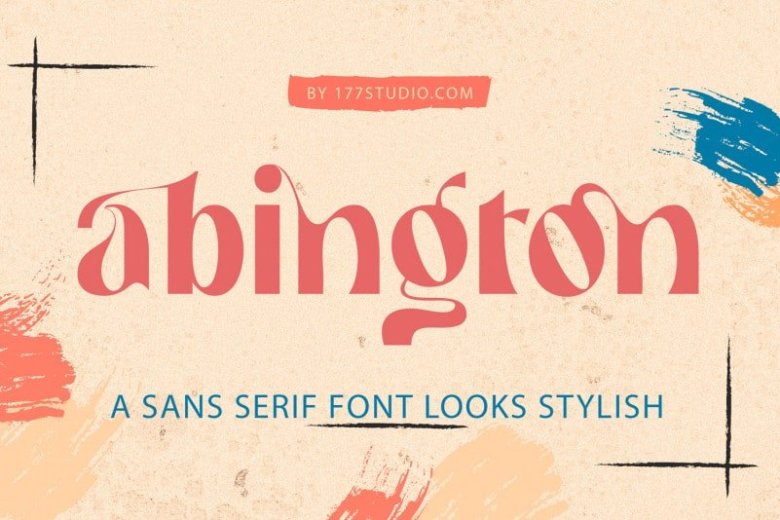
Abington Stylish Font
Introducing Abington Font. A solid, charming, and stylish modern font. Abington gives the impression of a modern and antique, but still elegant. Abington a sans serif font looks stylish, elegant and sophisticated will perfect for your latest project.
It’s perfect for branding projects, logo, wedding designs, social media posts, advertisements, product packaging, product designs, label, photography, watermark, invitation, stationery and any projects that need handwriting taste.